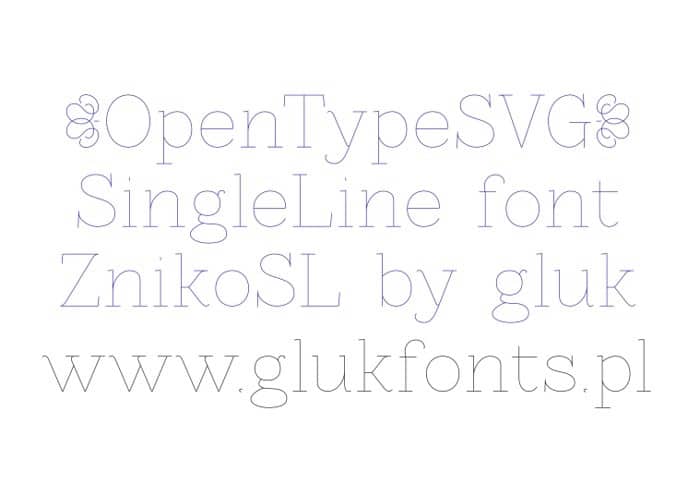
ZnikoSL Serif Font is a sans serif font inspired by Italian Graphic Design from ’40 and ’50. This typeface is a very nice clean font perfect for posters and headlines, and long texts this font is made by glukfonts. ZnikoSL has minimalist look to fashion branding, interior design, advertisements, websites, and more.